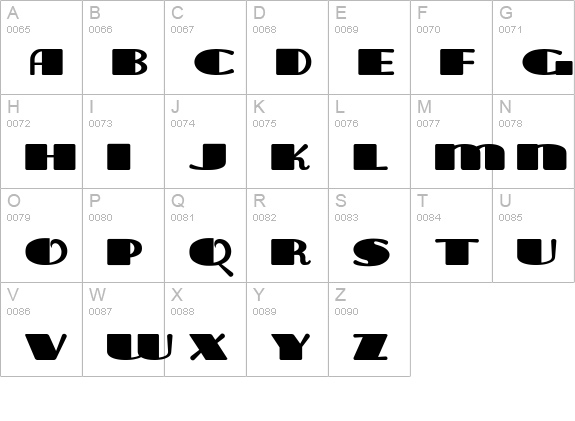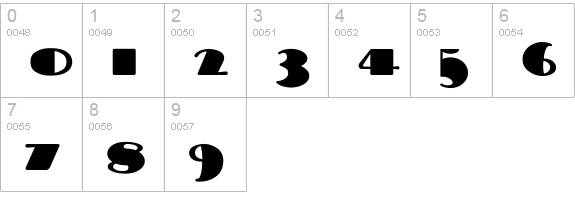
TaraBulbous Font Details
Introducing TaraBulbous, a mesmerizing font that effortlessly combines elegance and quirkiness. With its rounded and bulbous shapes, this font exudes a unique charm that is bound to captivate your audience. TaraBulbous is not only visually striking but also incredibly versatile, making it perfect for a wide range of creative projects. Whether you're designing a logo, crafting a poster, or creating eye-catching social media graphics, this font will effortlessly elevate your work to new heights. But what sets TaraBulbous apart is the fact that it is available for free. Yes, you read that right! This extraordinary font can be freely downloaded at FontsMarket.com, giving you the opportunity to enhance your designs without breaking the bank. Designed with attention to detail and precision, TaraBulbous ensures legibility without compromising on style. Its smooth curves and carefully crafted letterforms make it a joy to read, while its bold and playful nature adds a touch of personality to any project. So why wait? Embrace the captivating charm of TaraBulbous and let it transform your designs into works of art. Download this font for free at FontsMarket.com and unlock a world of creative possibilities.